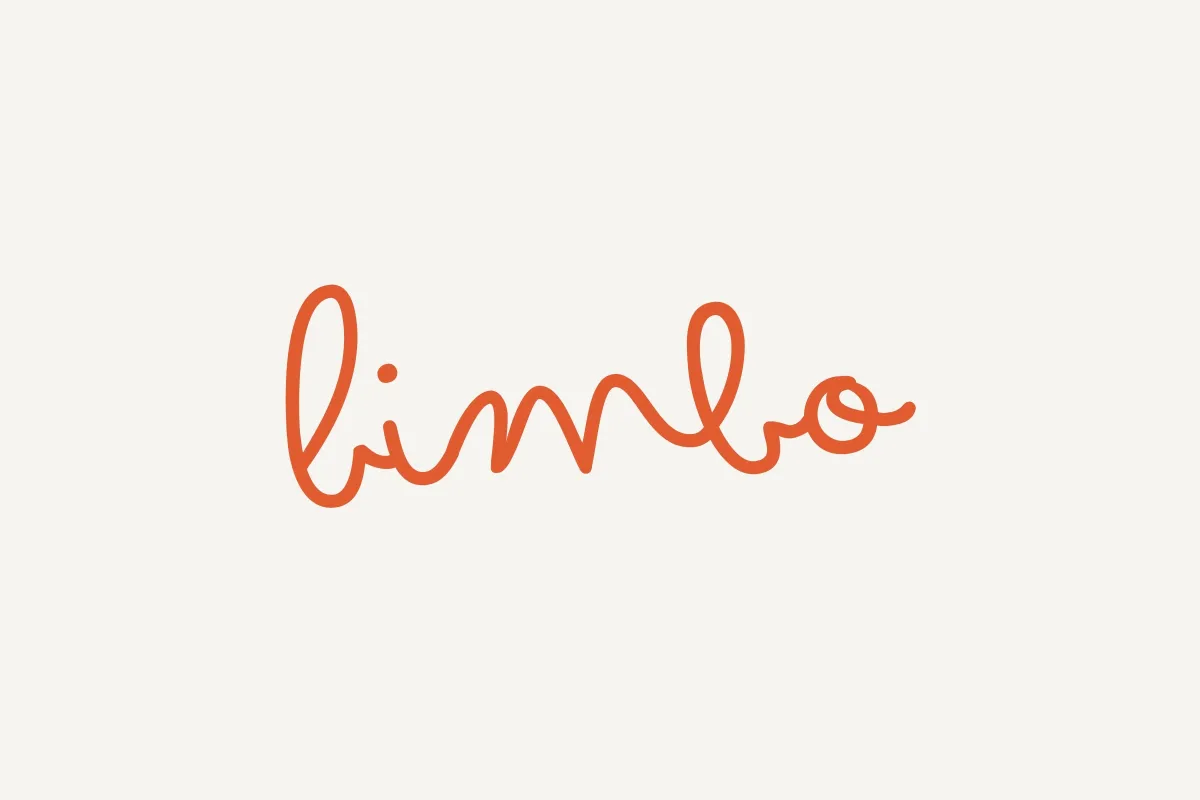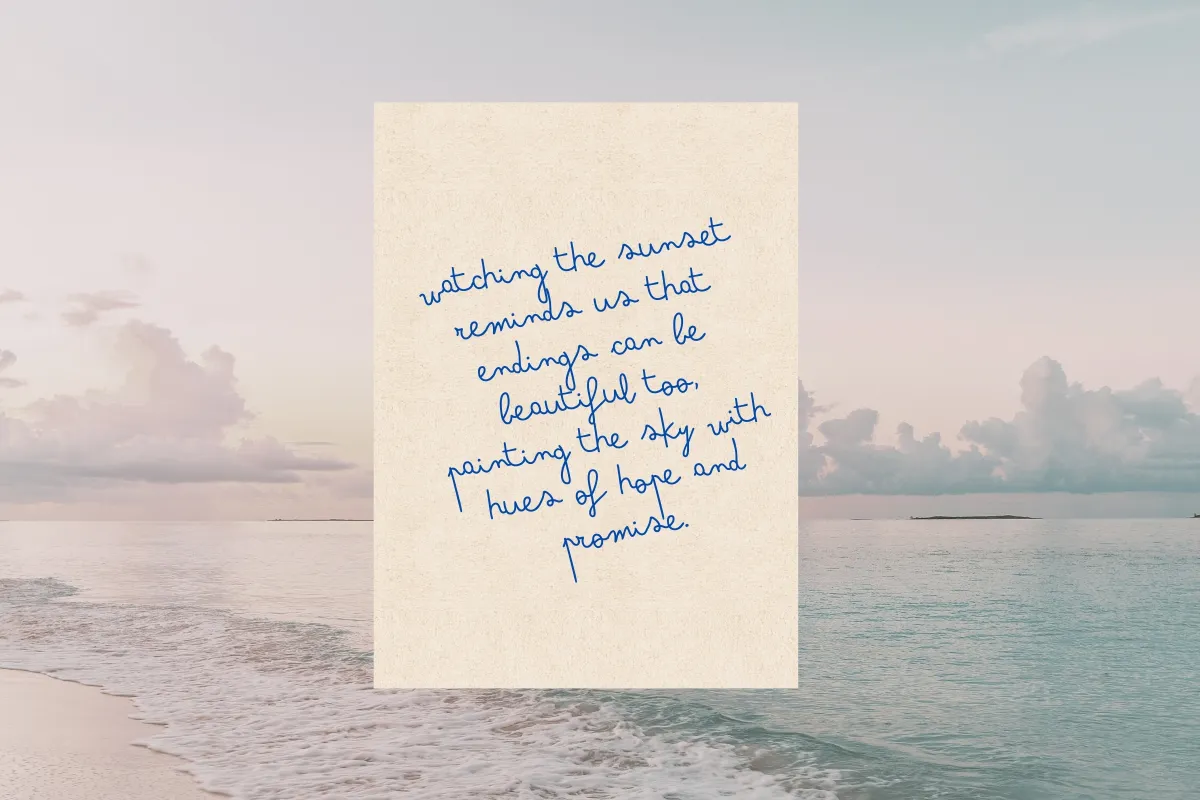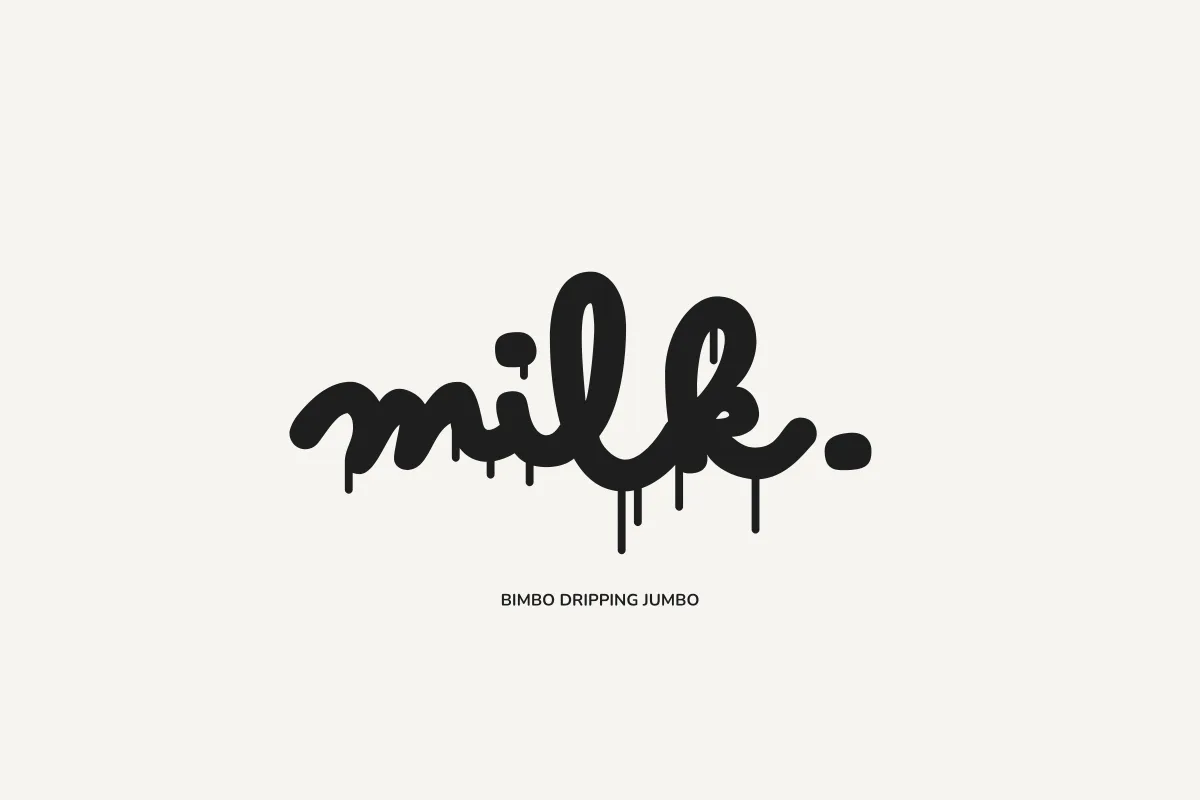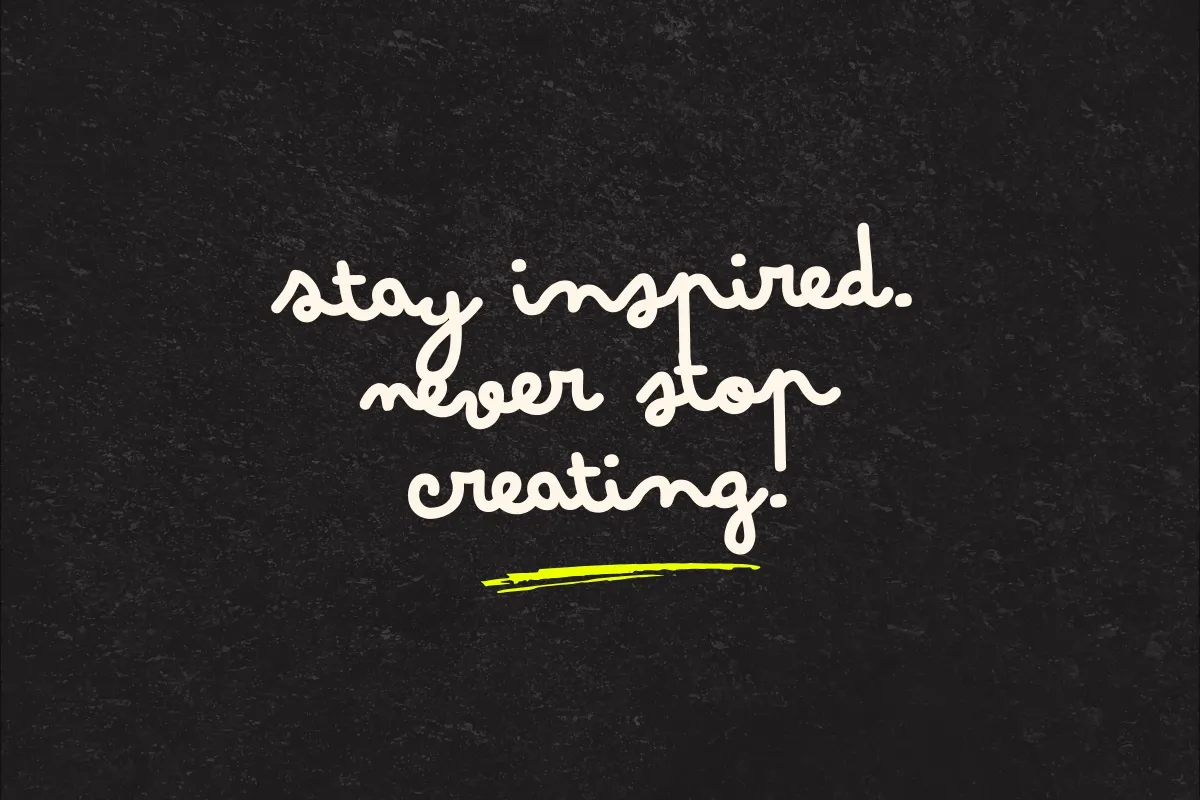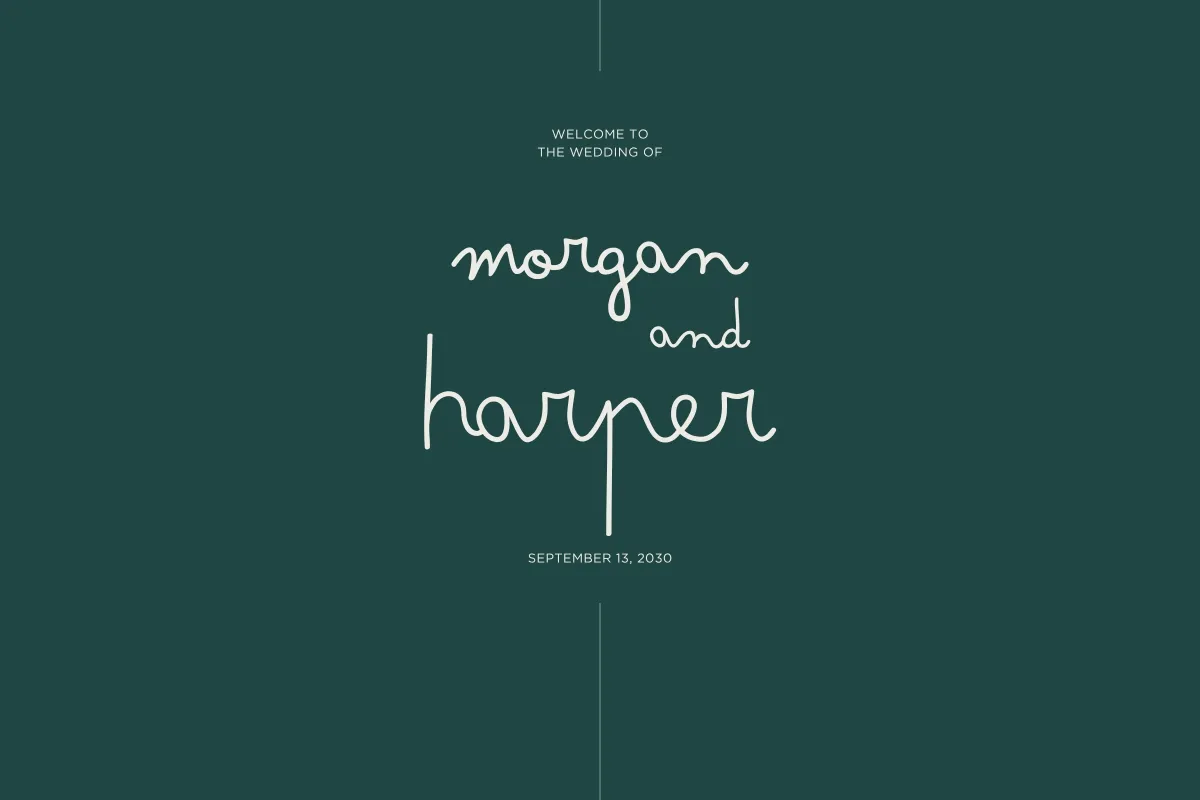
Bimbo Font
Bimbo is a monoline script font family designed by Francesco Canovaro for Zetafonts in 2018, expanding on the original Arsenale White typeface he developed with Italian illustrator Jonathan Calugi. The redesign adds 7 weights and over 300 new characters, bringing language support to more than 70 languages across Latin, Greek, and Cyrillic alphabets. You can see the handmade aesthetic in the casual, flowing letterforms the script maintains that handwritten feel while offering the control of multiple weights from thin to bold.
What makes Bimbo work is the built-in OpenType letter swapping feature that automatically substitutes alternate glyphs, so double letters never look identical (you can see this in words like “feel” and “letters” in the specimens). The monoline construction (uniform stroke weight throughout each letter) and open counters give it surprisingly good readability at smaller sizes despite being a script font. Canovaro designed it primarily for display use, minimal lettering, logos, and that handwritten note aesthetic. The seven weights let you adjust the personality from delicate to bold while keeping the same handmade character throughout.